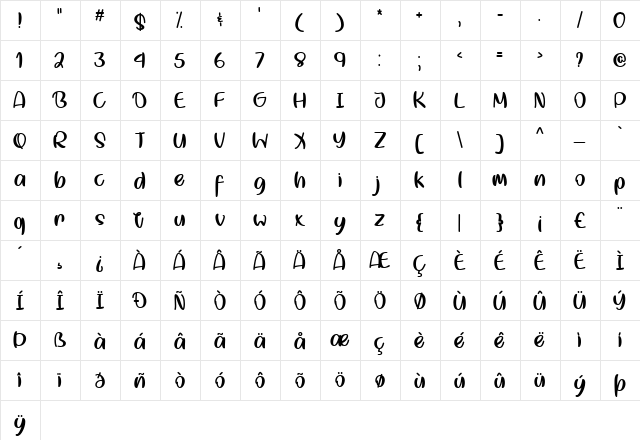
Smol Kitty Boi Regular
Design Context for Smol Kitty Boi Typeface
Smol Kitty Boi is a composed and adaptable typeface that performs quietly and consistently across a wide range of design contexts.